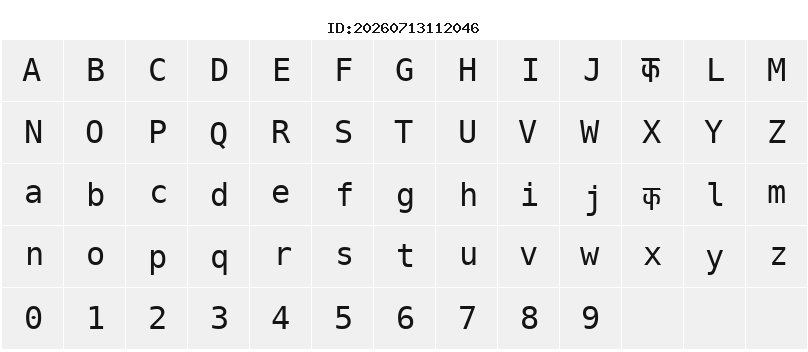
• Font Name: Rail Model
• Full Font Name: Rail Model
• Designer: DejaVu + Hrant H Papazian
• Manufacturer: DejaVu + Hrant H Papazian
• Description: Designer of k / K replacement: Hrant H Papazian - hpapazian@gmail.com - themicrofoundry.com
About Rail Model.ttf
Rail Model.ttf is a modern, elegant sans-serif font designed for ultimate readability and visual harmony. Perfect for branding, headlines, web design, and print materials.